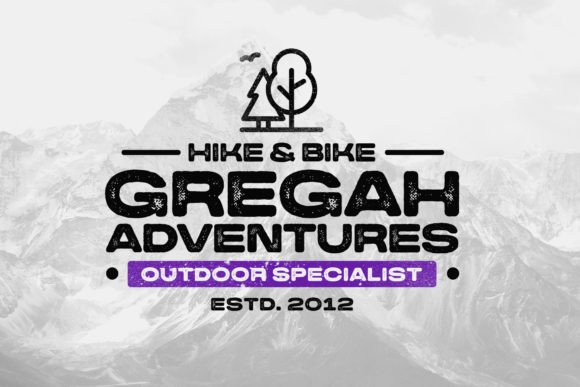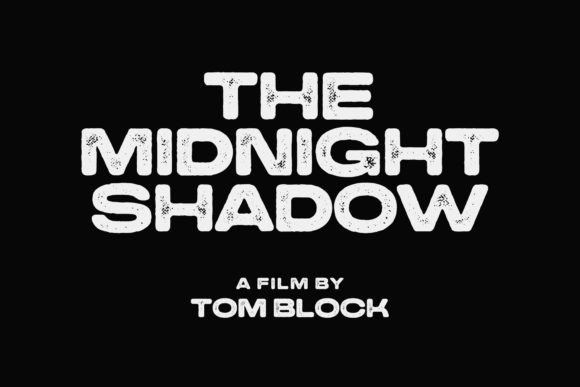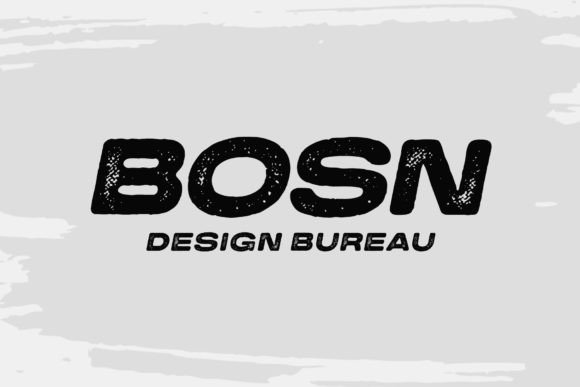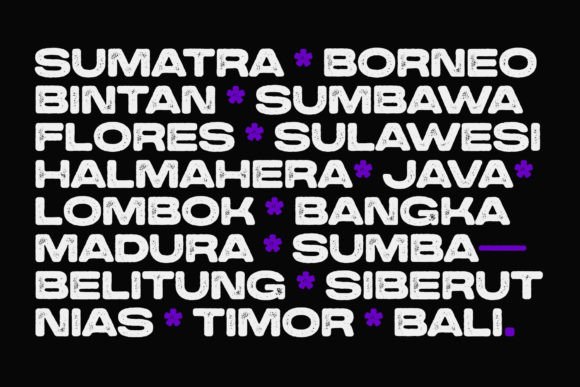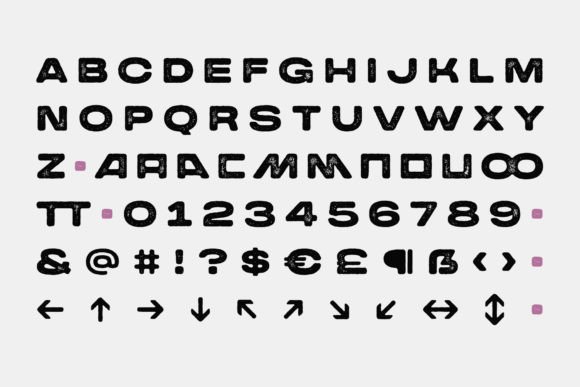
Introducing Gelegar Press Font: The Ultimate Display Sans Serif for Impactful Designs
In the world of design, fonts play a crucial role in conveying messages, evoking emotions, and creating lasting impressions. For designers and crafters seeking to make a bold statement, Gelegar Press Font is an extraordinary ultra-wide display sans serif font that is meticulously crafted for commanding visual and emotional impact. Whether you’re designing posters, social media posts, attention-grabbing headlines, monumental titling, or large-format prints, Gelegar ensures your project stands out from the crowd.
Key Features of Gelegar Press Font
- Ultra-Wide Display: Gelegar Press boasts an expansive design that grabs attention and dominates any layout, making it perfect for headlines, titles, and large-format prints.
- Sans Serif Elegance: The font features clean, modern sans serif lines that convey a sense of sophistication and professionalism, suitable for a wide range of design applications.
- Emotional Impact: Gelegar Press is designed to evoke strong emotions and create a lasting impression on viewers, making it an excellent choice for designers who want to leave a mark.
Design Applications for Gelegar Press Font
Gelegar Press Font is incredibly versatile and can be used in various design projects, including:
- Posters and Flyers: Create eye-catching posters and flyers that grab attention and communicate your message effectively.
- Social Media Posts: Elevate your social media presence with Gelegar Press, making your posts stand out in a crowded feed.
- Headlines and Titles: Use Gelegar Press to craft attention-grabbing headlines and titles that draw readers in.
- Monumental Titling: Gelegar Press is perfect for large-format prints, signage, and monumental titling that demands attention.
Benefits of Using Gelegar Press Font
By incorporating Gelegar Press Font into your design projects, you can:
- Increase Visibility: Gelegar Press helps your designs stand out in a crowded visual landscape.
- Emotional Connection: The font’s impactful design creates an emotional connection with your audience.
- Enhance Professionalism: Gelegar Press’s modern sans serif design conveys a sense of sophistication and professionalism.
Tips for Using Gelegar Press Font Effectively
To get the most out of Gelegar Press Font, consider the following tips:
- Use it Sparingly: Gelegar Press is a bold font; use it sparingly to avoid overwhelming your design.
- Pair it with Contrasting Fonts: Combine Gelegar Press with contrasting fonts to create visual interest and hierarchy.
- Experiment with Colors: Take advantage of Gelegar Press’s bold design by experimenting with vibrant colors and gradients.
Gelegar Press Font is a powerful tool for designers and crafters seeking to create impactful designs that command attention and evoke emotions. With its ultra-wide display sans serif design, Gelegar Press is perfect for a wide range of applications, from posters and social media posts to monumental titling and large-format prints. By incorporating Gelegar Press into your design projects, you can increase visibility, create an emotional connection with your audience, and enhance your professionalism.